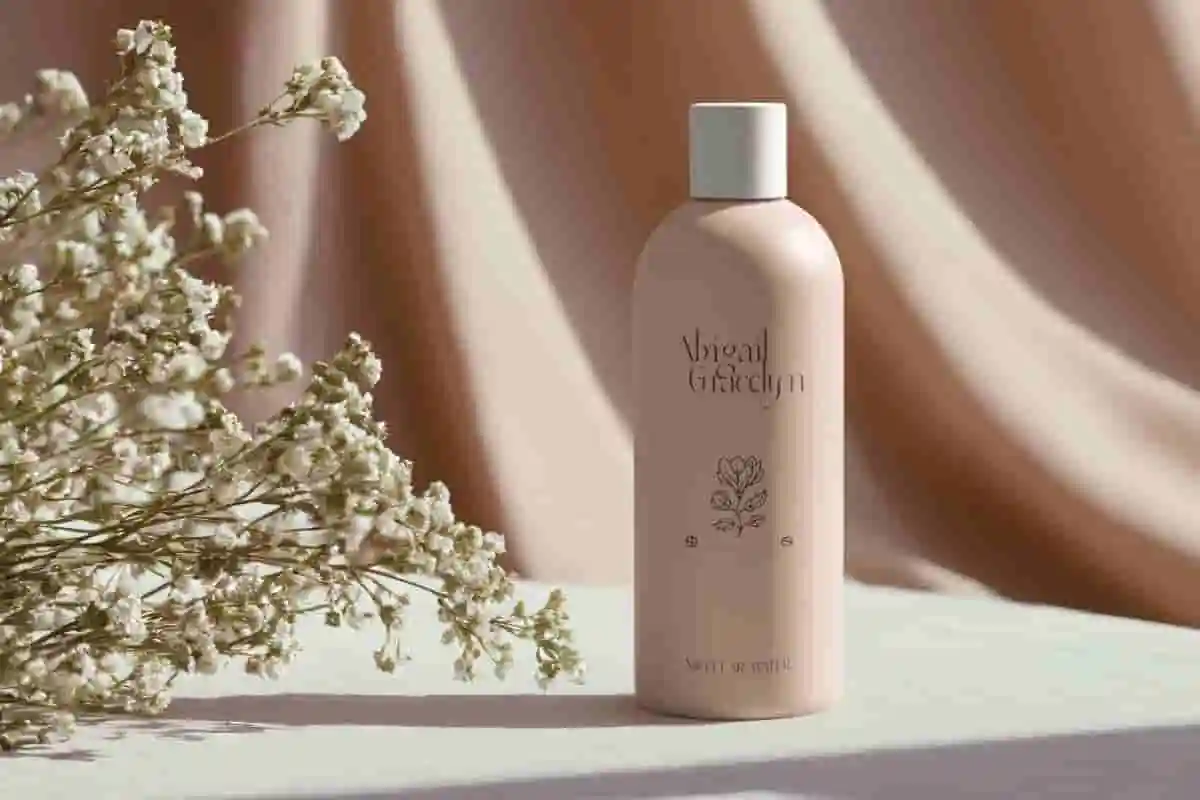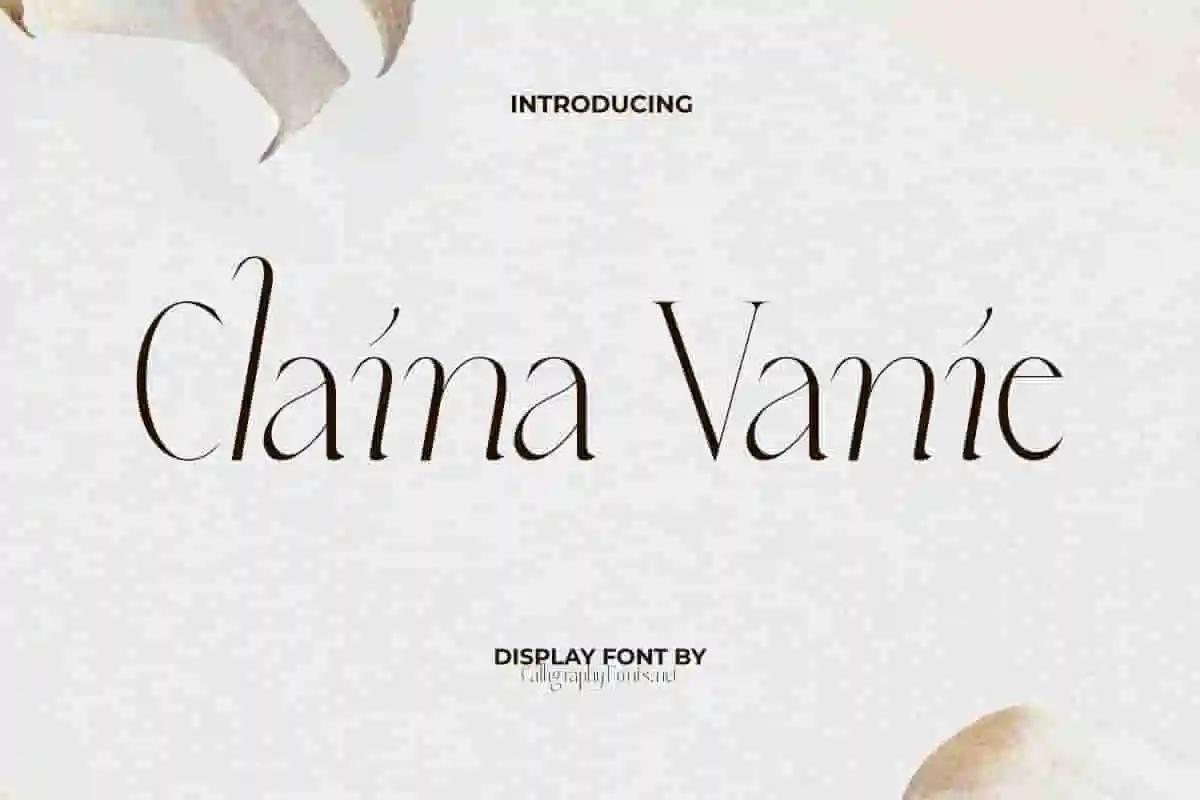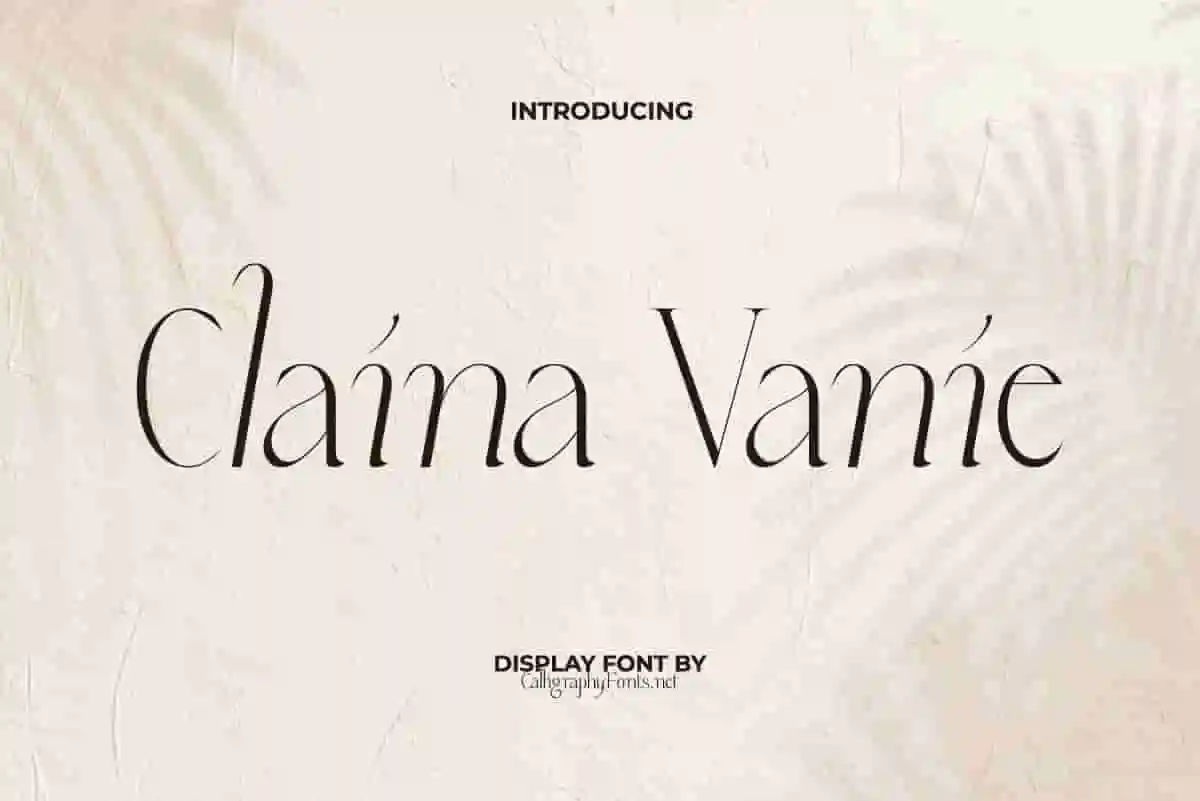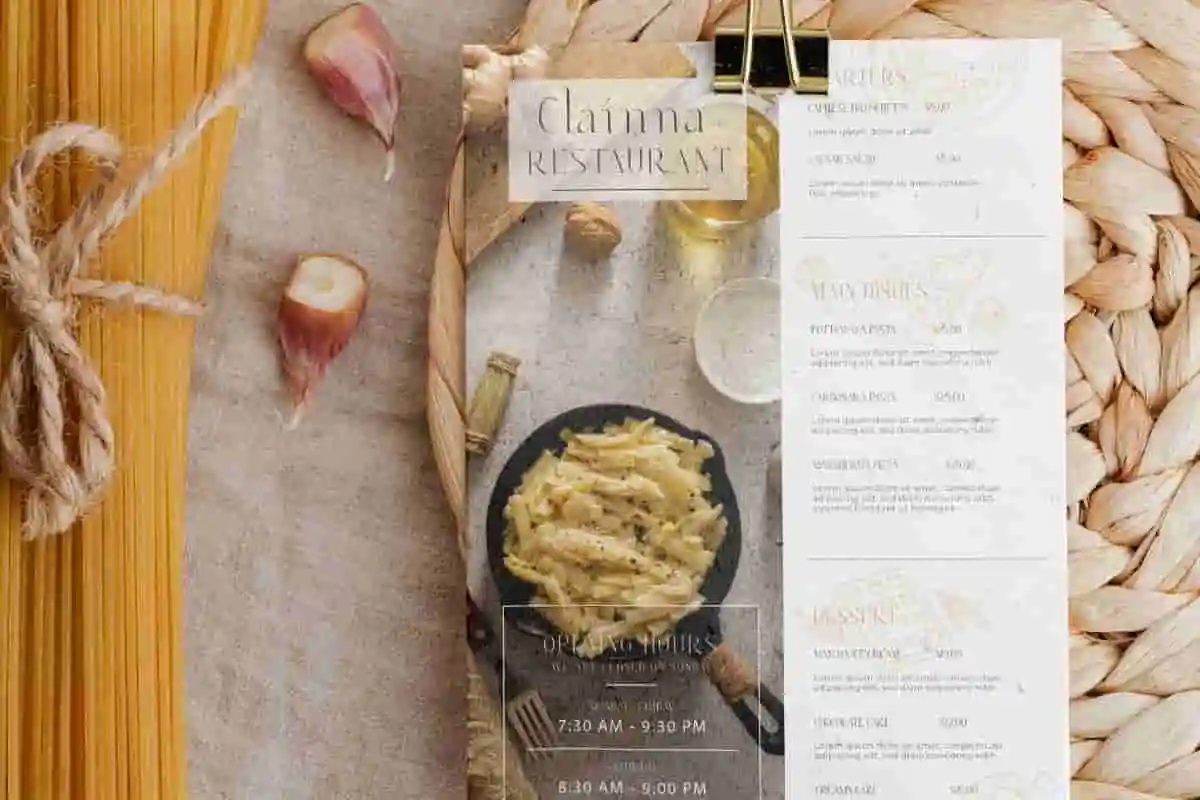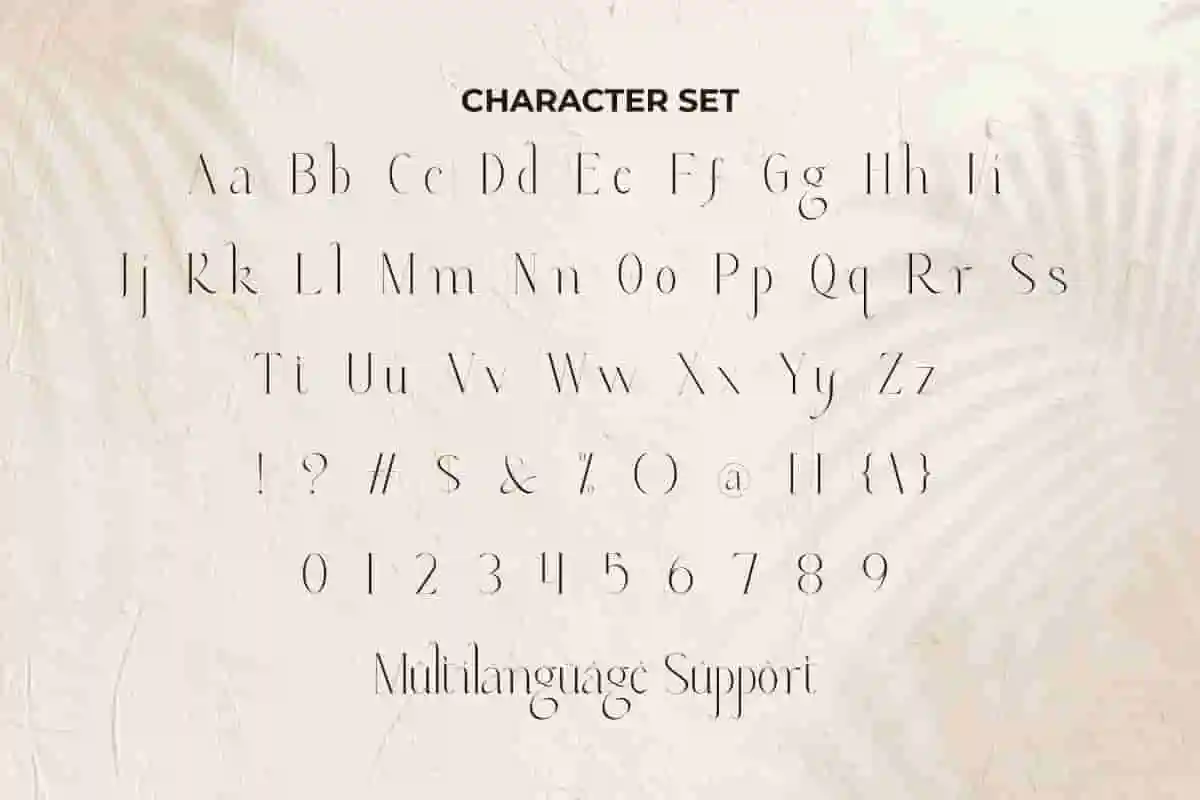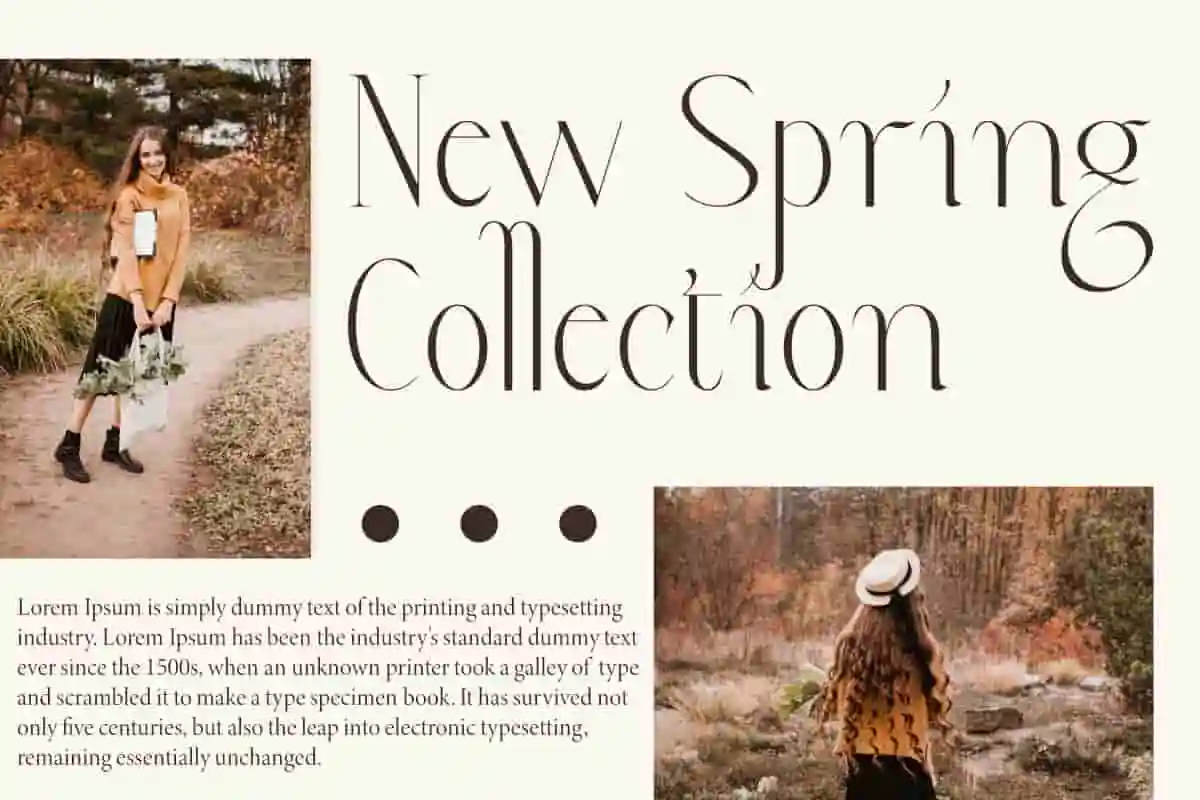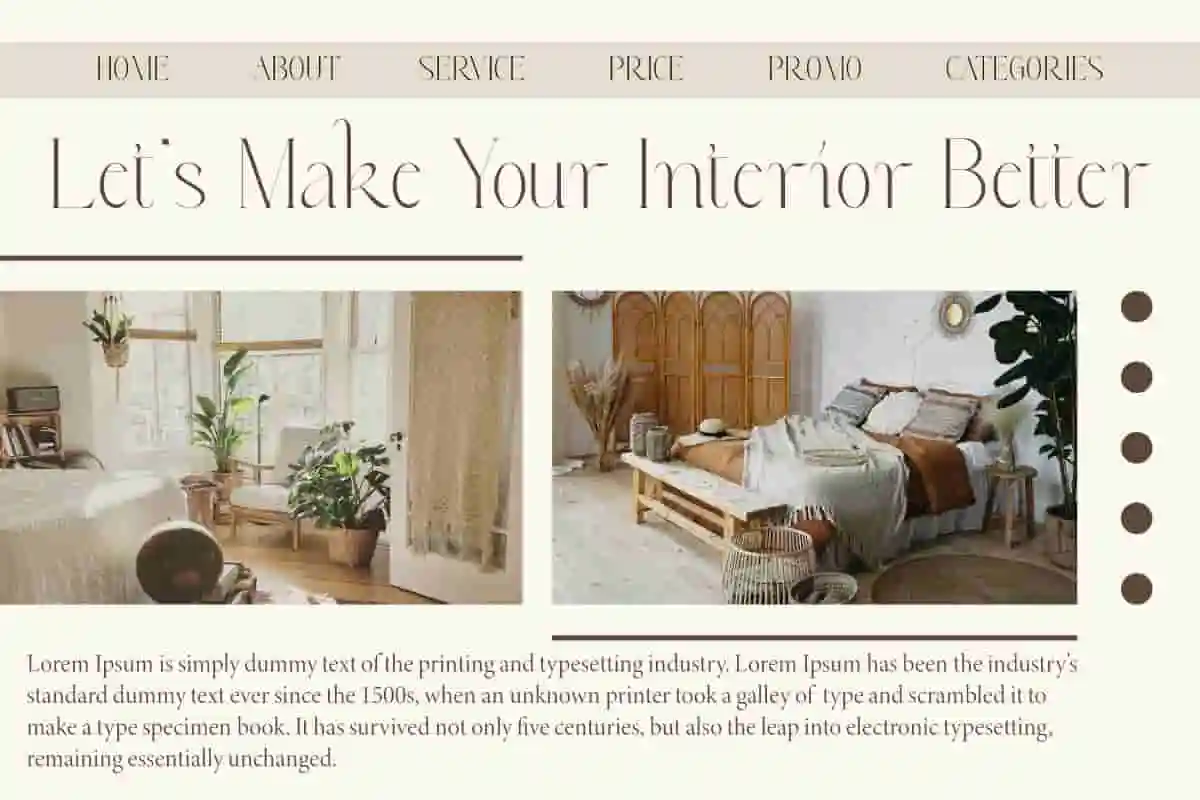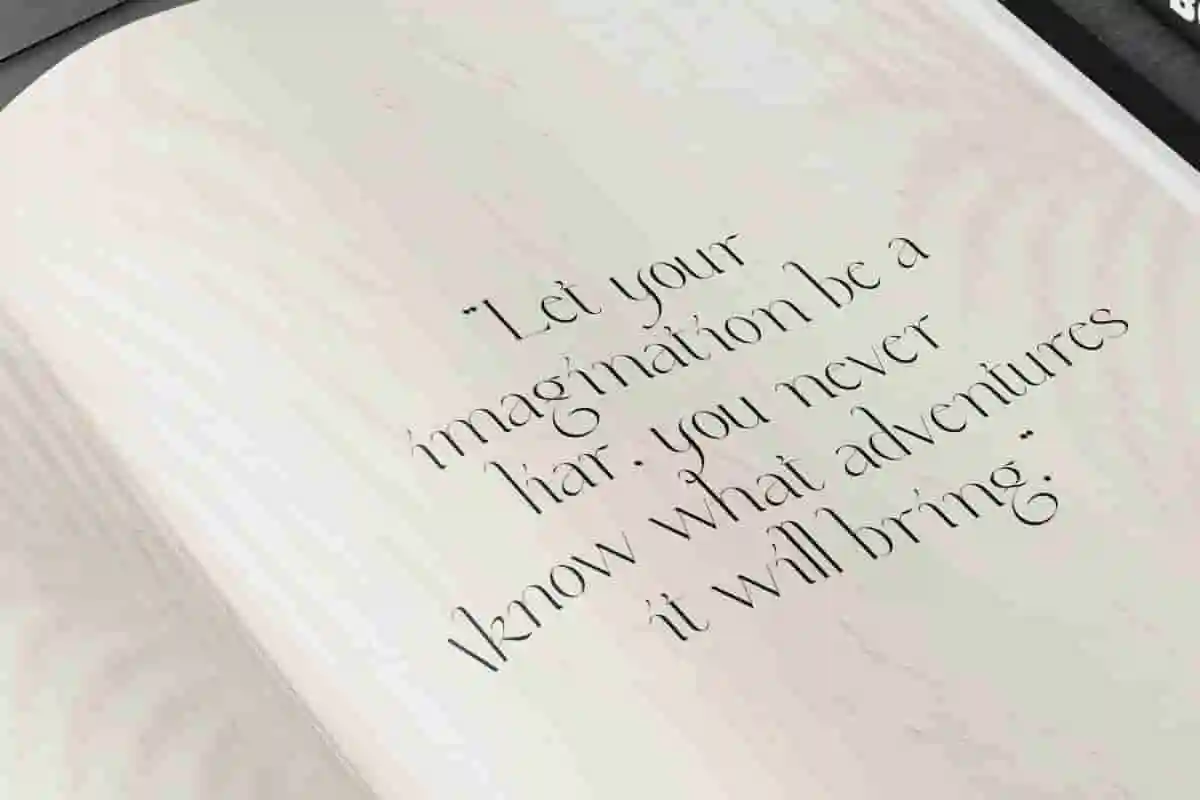
Claina Vanie Display Font
Claina Vanie Font is a beautiful sans serif font with artistic elegance. Perfect to help you in your creative projects for both digital and print purposes that require a trendy and original touch!
Claina Vanie Font is an elegant serif display font with alternates that come in an italic aesthetic. It has a visually appealing character, will be versatile in both formal and informal formats. Carefully crafted to make it a clean, neat, balanced and stylish serif font. Perfect for apps, banners, blogs, brand logo, brochure, covers, greeting cards, headers, invitation, mockup, packaging, quotes, stationery, sticker, template, title, website, and more.
Introducing Claina Vanie Display Font, a beautifully crafted serif typeface designed to elevate your creative projects with timeless elegance and striking presence. Perfectly suited for logos, branding, editorial headlines, packaging, and invitations, this font offers a refined aesthetic that instantly grabs attention. With its high-contrast strokes, graceful curves, and sharp serifs, Claina Vanie combines modern sophistication with classic charm.
Step up your design game with Claina Vanie Display Font, a stunning serif typeface crafted to bring bold elegance and timeless style to your creative projects. Designed with refined curves, sharp serifs, and a balanced contrast, this font makes every word feel important and memorable. Ideal for fashion branding, luxury packaging, editorial headlines, wedding invitations, and digital graphics, Claina Vanie offers versatility without compromising sophistication.
Introducing Claina Vanie Display Font, a beautifully crafted serif typeface designed to add sophistication and boldness to your creative projects. With its refined serifs, smooth curves, and striking contrast, this font is perfect for designers who want to make a statement. Whether you’re creating luxury branding, editorial headlines, packaging, or wedding invitations, Claina Vanie offers a timeless look that enhances readability while giving your designs a premium feel.
• Elegant serif display font
Claina Vanie Font is a modern style serif display that exudes sophistication and cohesion. This typeface can beautify and easily customize as a perfect partner for any project. Perfect for apparel, authors, beauty product, boutique, corporate business, digital marketing, event organizer, fashion, graphic design, home furnishing, interior design, photography, publisher, real estate, restaurant, spa salon, travel agency, and much more.